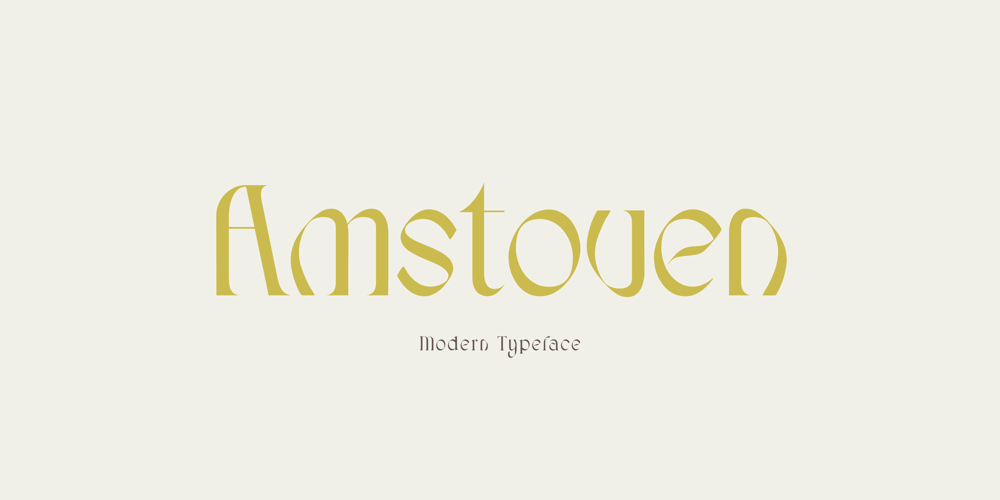
Amstoven Font Family was designed by Yusup Saputra and published by DYSA Studio. Amstoven contains 1 styles and family package options. Amstoven is a New Modern Serif Typeface. This another collection of Serif is perfect for your next branding project, excellent for your business. Amstoven have a smooth edges, so this font gives an authentic handcrafted feel style.